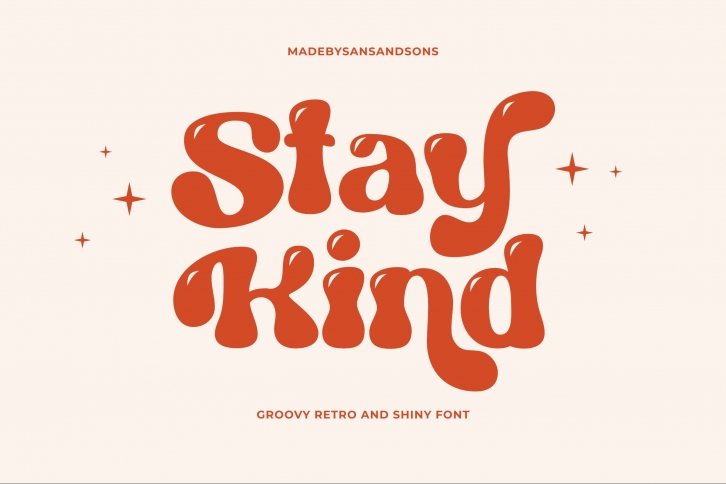
Stay Kind is a great font that was designed by Sans & Sons. Imagine the amount of combinations you can create using this font! The archive is 17.74 MB and it was released on November 4, 2021. Stay Kind looks beautiful on wedding invitations, greeting cards, logos, posters, labels, t-shirt designs, logos, business cards and is perfect for use in ink or watercolor works, fashion, magazines, packaging and food menus, children's books and more!